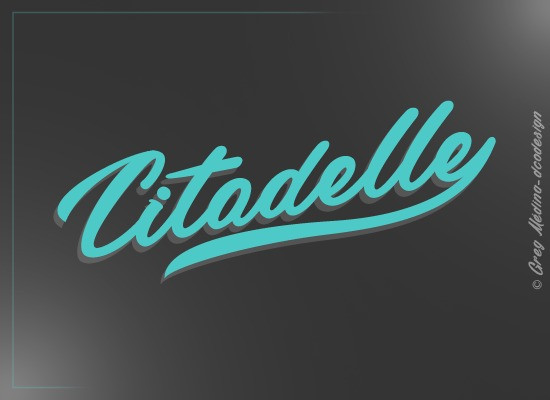
Citadelle Font
Citadelle Script Font, It can easily be matched to an incredibly large set of projects, so add it to your creative ideas and notice how it makes them stand out!